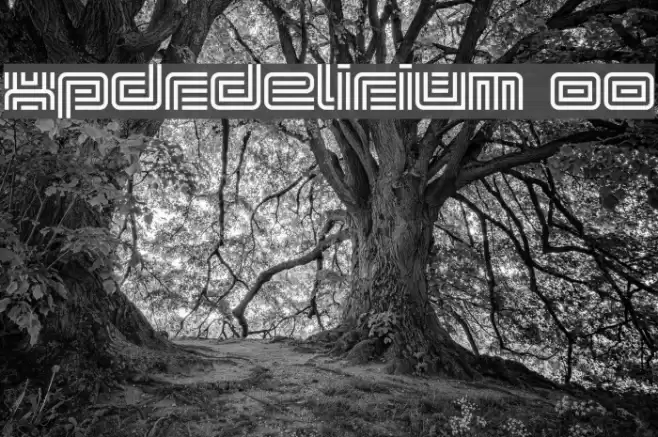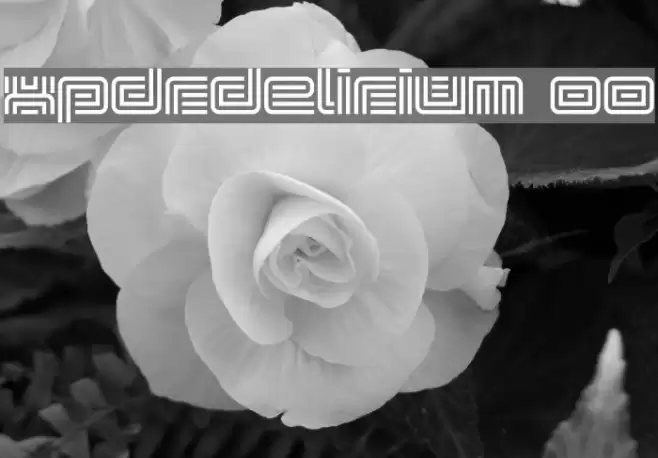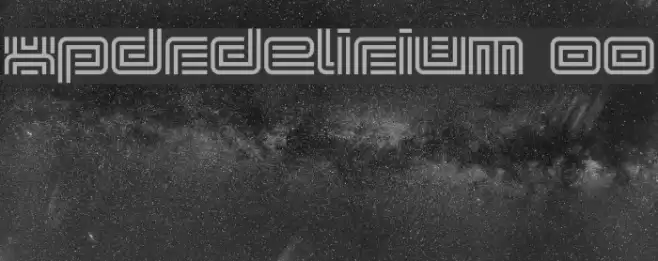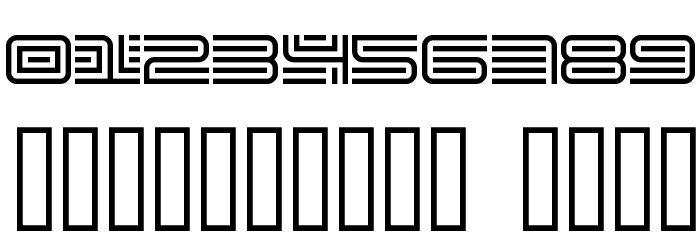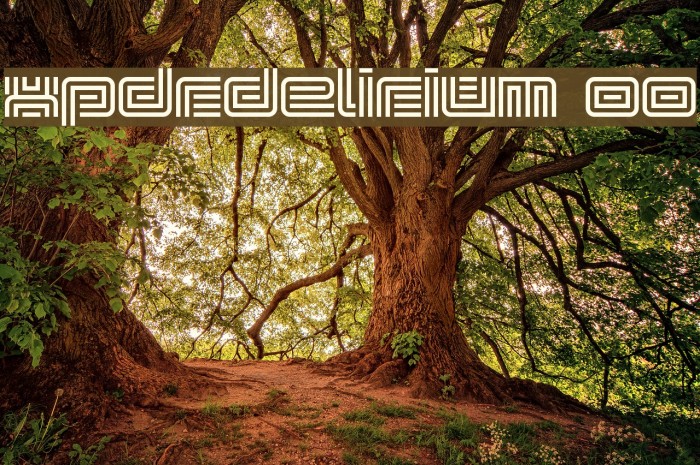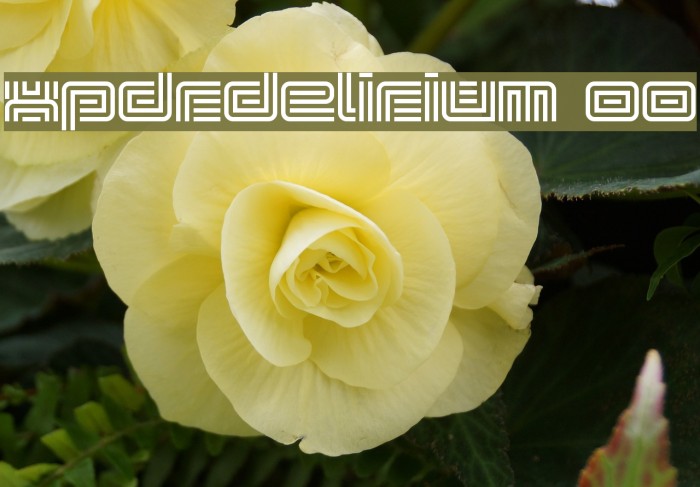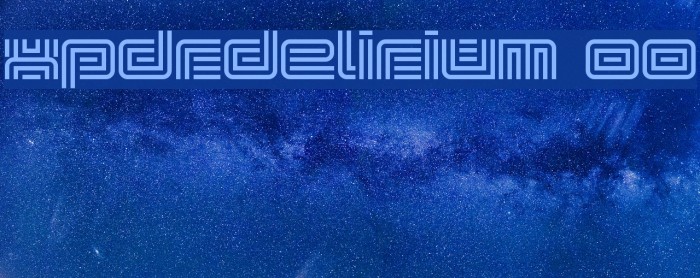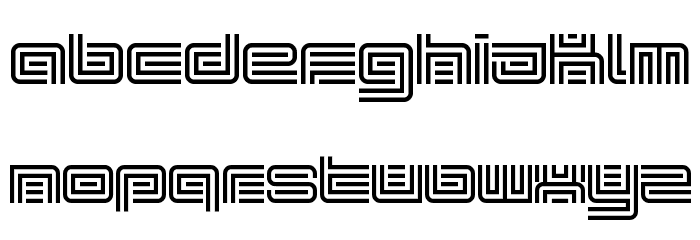
xpdr_delirium 00 Font
xpdr_delirium 00 Description
This font features a highly decorative and futuristic design, characterized by its intricate line work and geometric patterns. Each character is composed of multiple parallel lines, creating a maze-like appearance that is both bold and visually striking. The uppercase and lowercase letters maintain a consistent style, with a strong emphasis on horizontal and vertical lines. The numerals and special characters follow the same design principles, ensuring a cohesive look across all glyphs. This font is ideal for projects that require a modern and avant-garde aesthetic, making it suitable for use in digital art, sci-fi themed designs, and innovative branding projects.
A futuristic, decorative font with intricate geometric line patterns from Uncategorized fonts.
- Proposed Projects: Ideal for digital art, sci-fi themed designs, innovative branding, and modern posters.
- Overall Style: Futuristic, Avant-garde
- Use Case: Logos, Posters, Digital Art